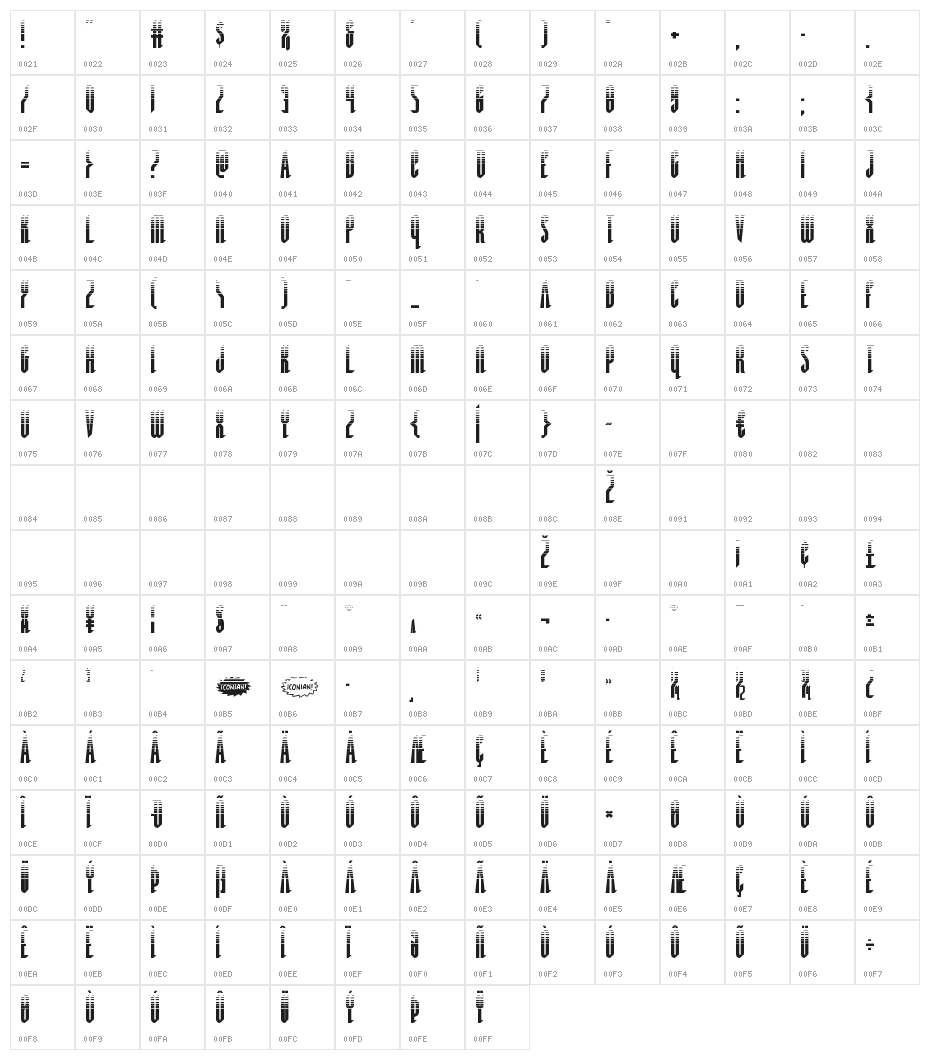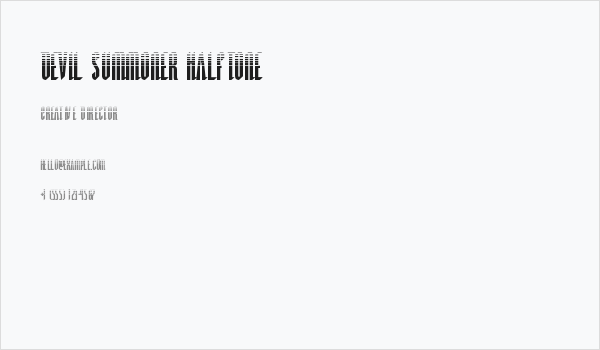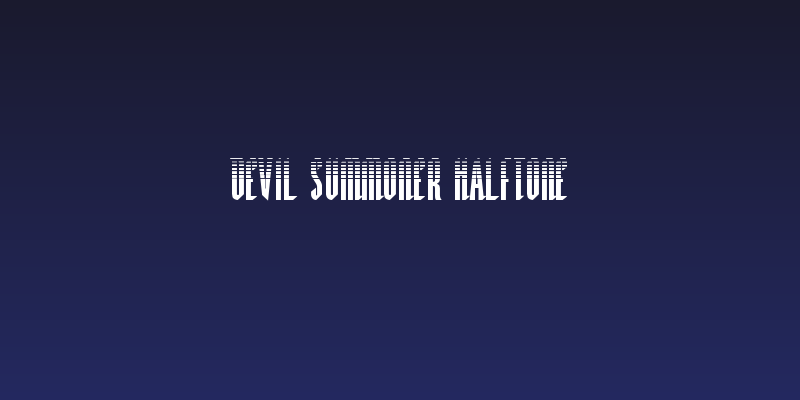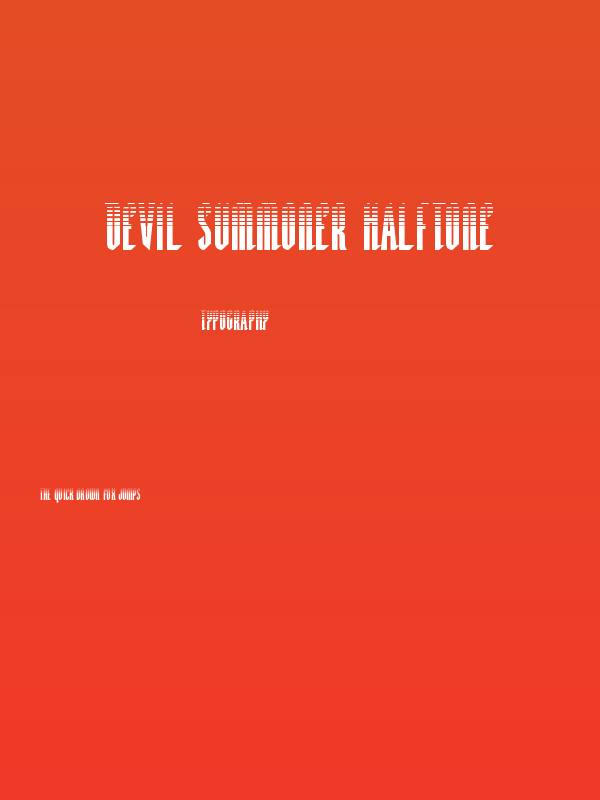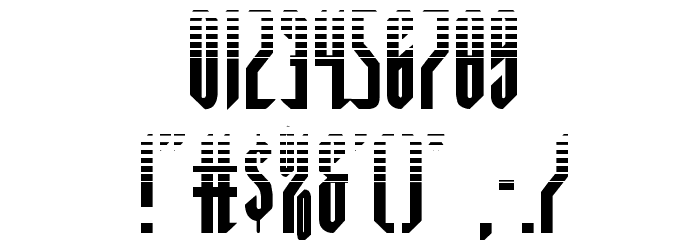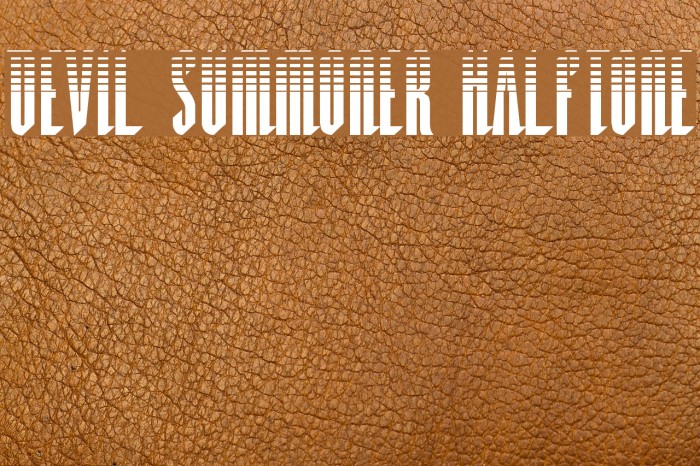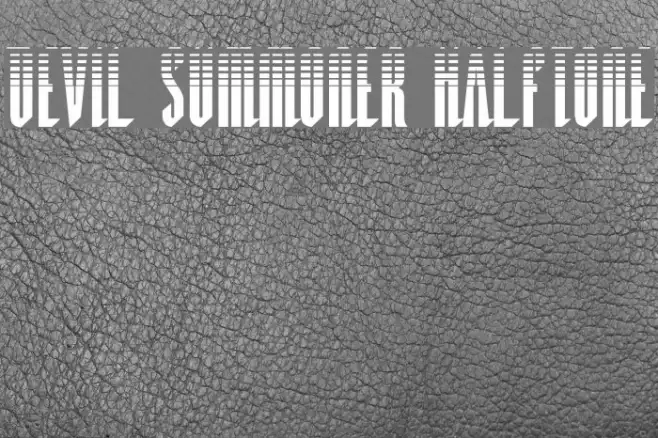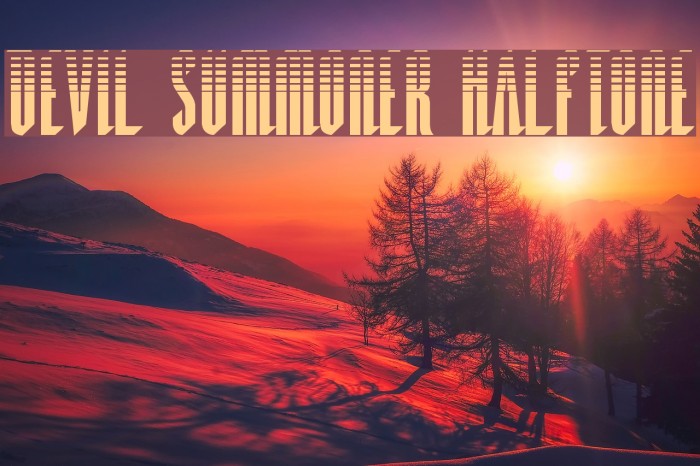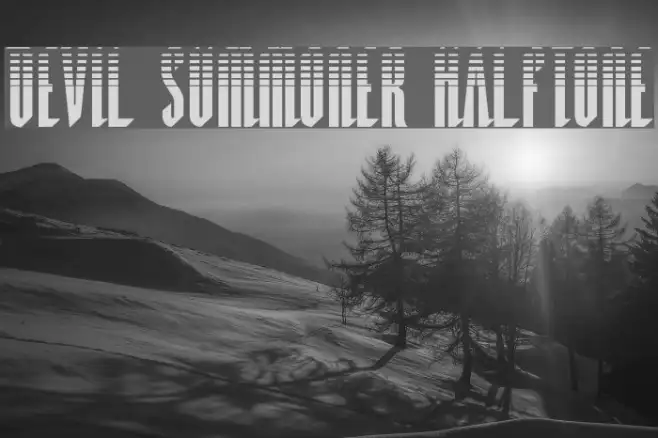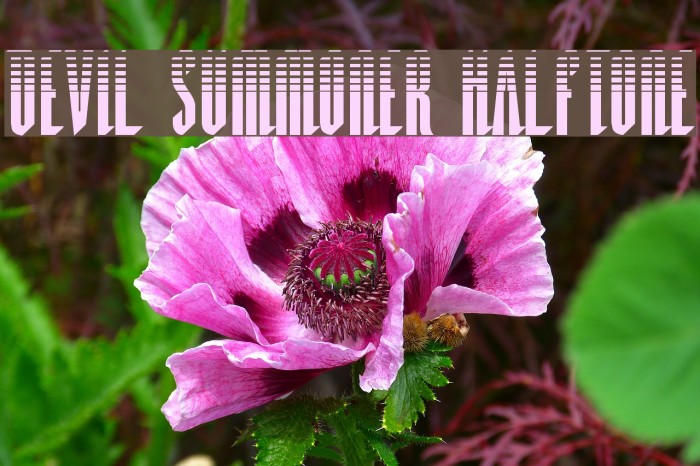
Devil Summoner Halftone Font
Devil Summoner Halftone Description
This font features a bold and striking design with a halftone effect that gives it a unique, edgy appearance. The uppercase and lowercase letters are designed with a modern, angular style, incorporating horizontal lines that create a sense of movement and depth. The numbers and special characters follow the same design principles, ensuring consistency across all elements. This font's distinctive look makes it ideal for projects that require a strong visual impact, such as posters, album covers, or branding materials. Its bold weight and high contrast between thick and thin strokes enhance its readability while maintaining a decorative flair.
| Proposed Projects | Ideal for posters, album covers, branding, and any project needing a strong visual impact. |